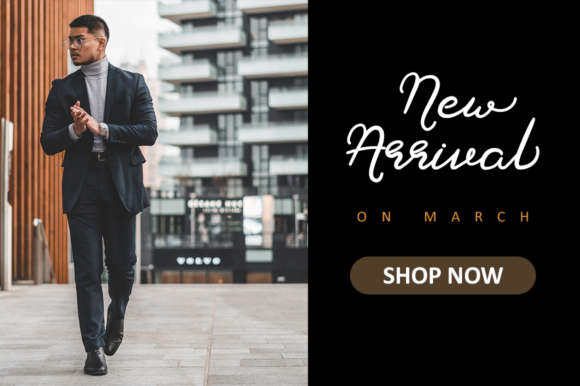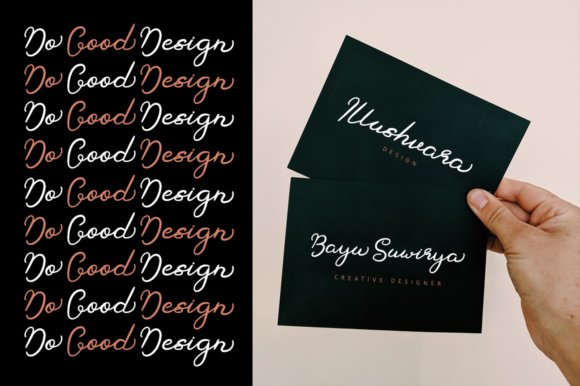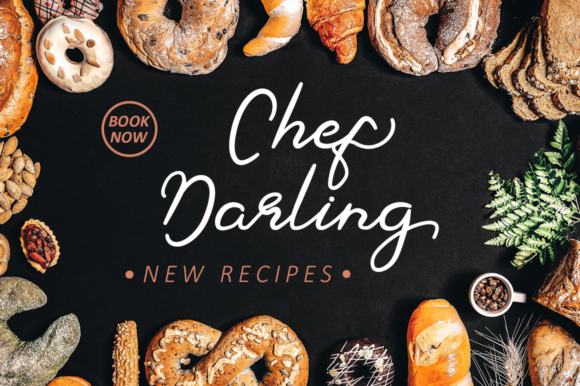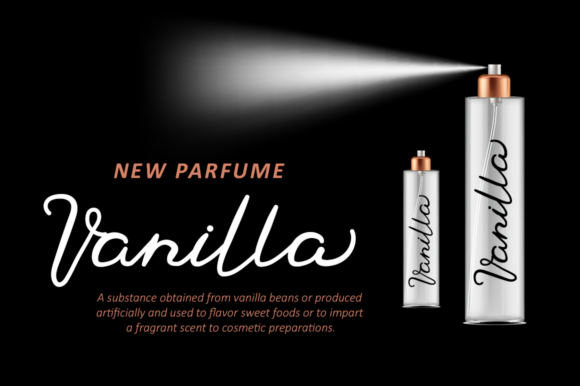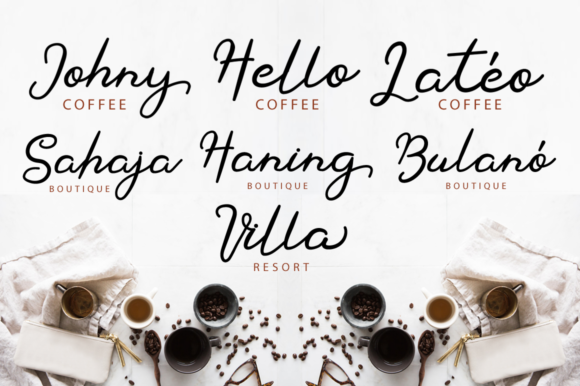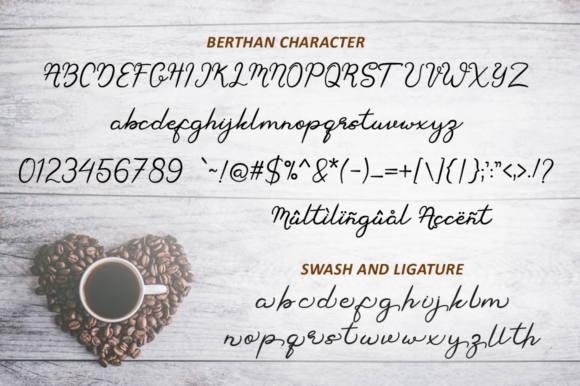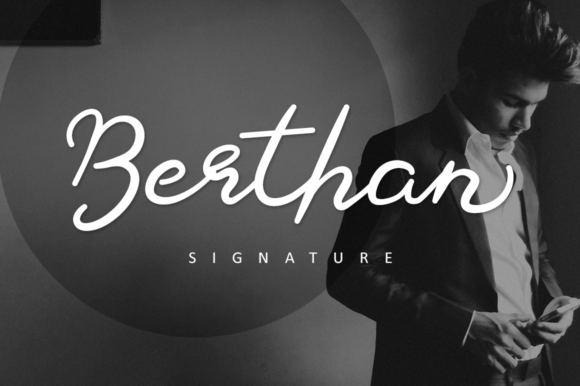
Discover the Elegance of Berthan Font: A Handwritten Masterpiece
In the world of typography, few fonts manage to strike a balance between elegance and modernity. Berthan Font is one such exceptional find that brings a touch of sophistication to any design project. This beautifully crafted handwritten font is designed to add a classy feel to your creations, making it perfect for a wide range of applications, from letterheads and titles to stationery and more.
The Essence of Berthan Font
Berthan Font simplifies elegance into one truly outstanding handwritten font. It maintains its classy calligraphic influences while feeling contemporary and fresh. The result is a versatile font that can elevate any design project with its unique charm. Whether you’re a designer looking for the perfect typography for a client’s project or a crafter seeking to add a personal touch to your creations, Berthan Font is an excellent choice.
Key Features of Berthan Font
- Classy Calligraphic Influences: Berthan Font boasts elegant strokes and fluid connections, reminiscent of traditional calligraphy. This gives it a sophisticated look that’s perfect for projects that require a touch of luxury.
- Contemporary and Fresh: Despite its classic roots, Berthan Font feels modern and fresh. This makes it incredibly versatile, allowing it to fit seamlessly into both traditional and contemporary designs.
- Versatility: One of the standout features of Berthan Font is its versatility. It can be used for a wide range of crafty ideas, including letterheads, titles, stationery, and more. Whether you’re working on a professional project or a personal craft, Berthan Font can help you achieve your desired aesthetic.
Applications of Berthan Font
The versatility of Berthan Font makes it suitable for various design projects. Here are some of the ways you can use this beautiful font:
- Letterheads and Titles: Add a touch of elegance to your business correspondence with Berthan Font. Its classy appearance makes it perfect for letterheads, titles, and headings.
- Stationery: Elevate your stationery designs with Berthan Font. Whether you’re creating custom greeting cards, invitations, or notebooks, this font can add a sophisticated touch.
- Branding and Packaging: For businesses looking to create a luxury brand image, Berthan Font can be a valuable asset. Use it for logos, packaging, and marketing materials to convey elegance and refinement.
- Digital Content: Berthan Font is not just limited to print. It can also be used for digital content, such as website headings, social media graphics, and email newsletters, to create a cohesive brand image across all platforms.
Tips for Using Berthan Font
To get the most out of Berthan Font, consider the following tips:
- Pair it with Simpler Fonts: For maximum impact, pair Berthan Font with simpler, sans-serif fonts for body text. This contrast will help highlight the elegance of Berthan Font.
- Experiment with Colors: While Berthan Font looks stunning in traditional colors like black and navy, don’t be afraid to experiment with other hues. Pastels, metallics, and rich jewel tones can add an extra layer of sophistication.
- Play with Sizes: Berthan Font’s versatility extends to its use in various sizes. Use it for large headings or smaller captions, depending on your design needs.
Berthan Font is a beautifully crafted handwritten font that brings elegance and sophistication to any design project. Its classy calligraphic influences, combined with a contemporary feel, make it a versatile choice for designers and crafters alike. Whether you’re working on professional projects or personal crafts, Berthan Font can help you achieve a refined and luxurious aesthetic. Discover the elegance of Berthan Font and elevate your designs to new heights.